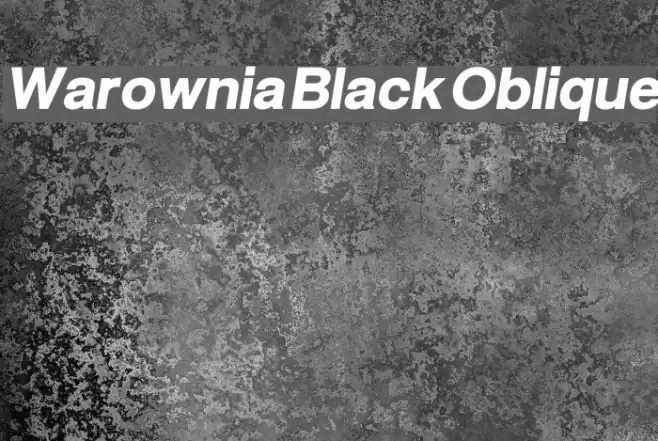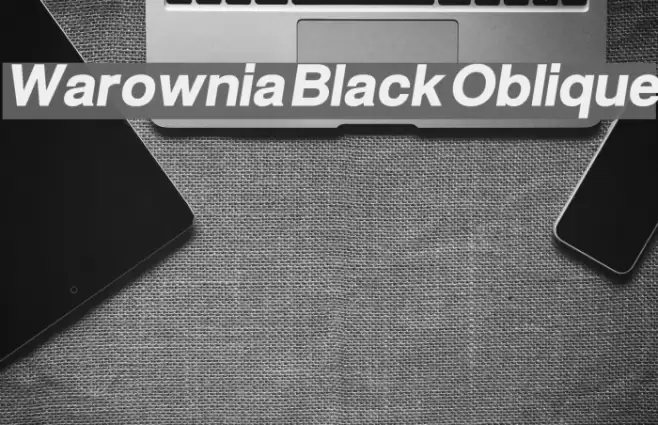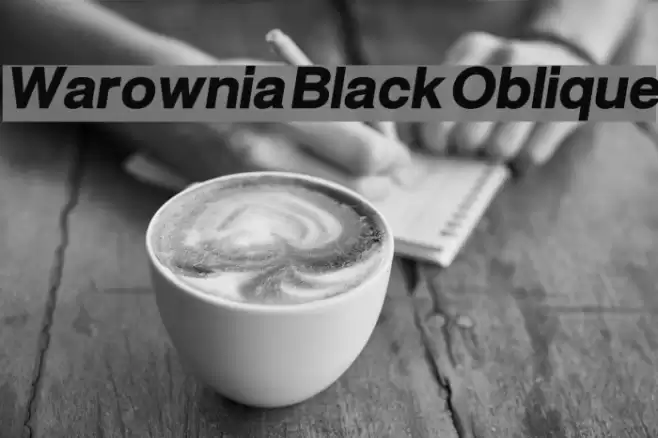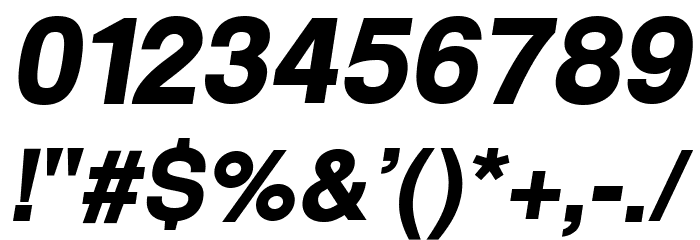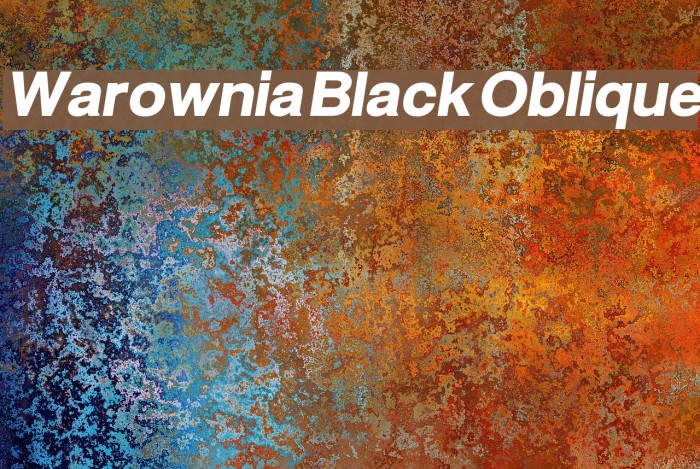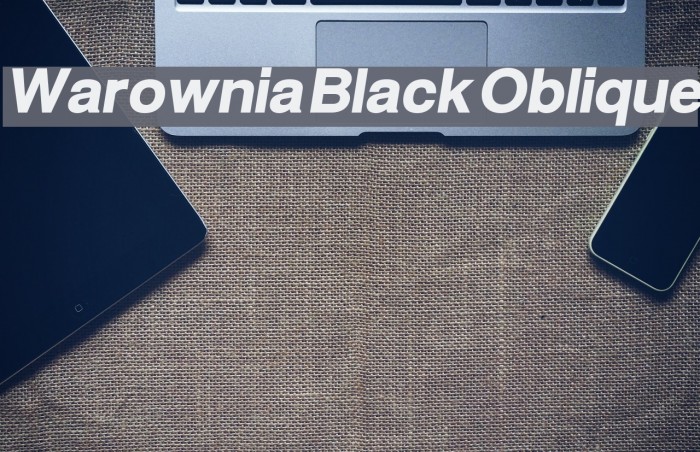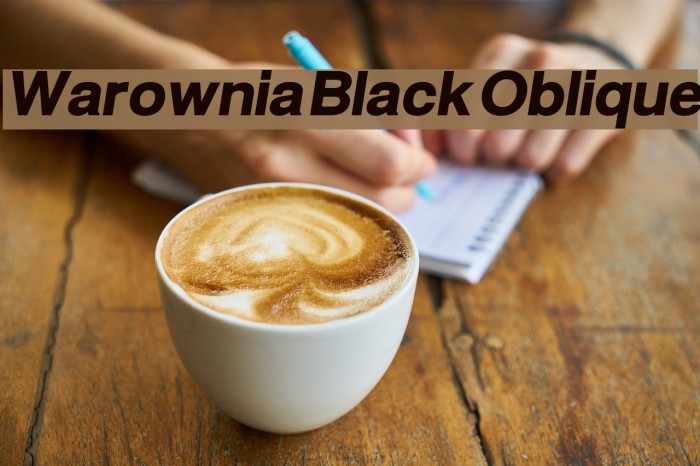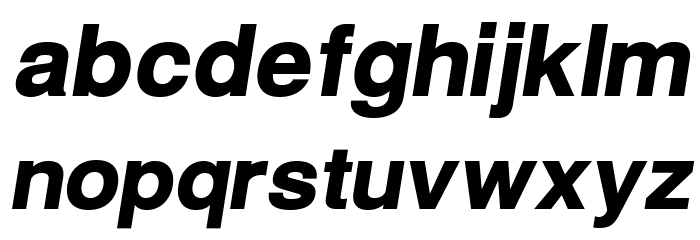
Warownia Black Oblique
This font exhibits a bold and dynamic style with a strong oblique slant, giving it a sense of motion and energy. The characters are thick and robust, providing a powerful visual impact. The uppercase and lowercase letters are designed with a consistent weight, ensuring readability and uniformity. The numerals are equally bold, maintaining the font's overall strength. Special characters are included, matching the font's bold and slanted style. This font is ideal for projects that require a strong and assertive presence.
A bold, oblique font with a dynamic and energetic style.
- Proposed Projects: Ideal for headlines, posters, branding, and advertising where a strong visual impact is needed.
- Use Case: Headlines, Logos, Posters